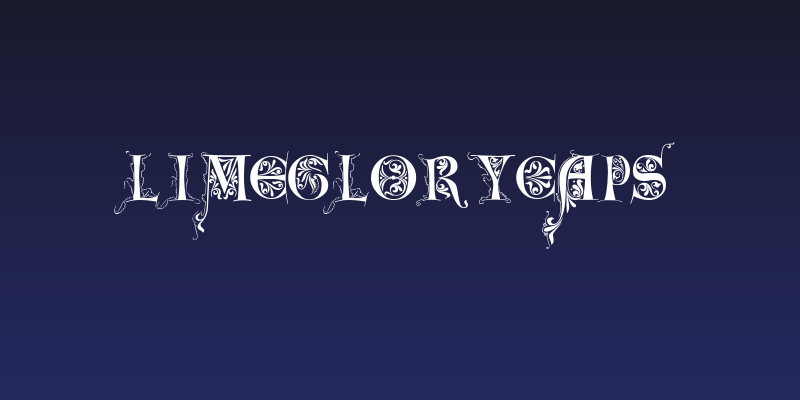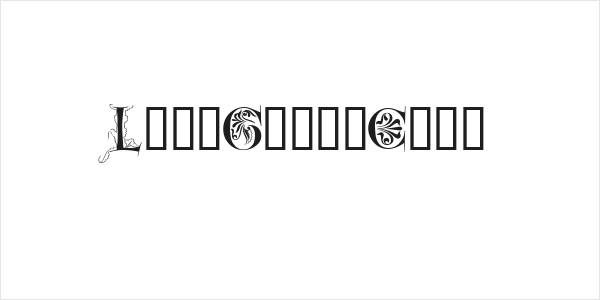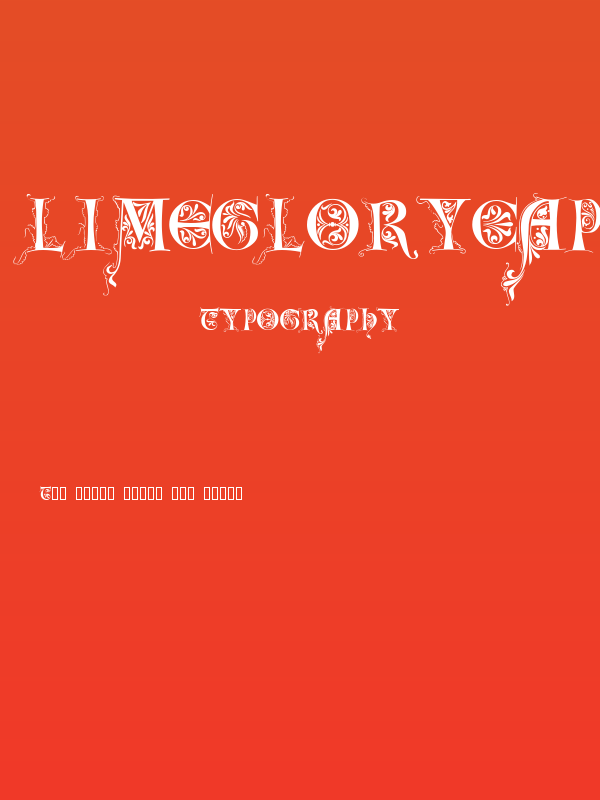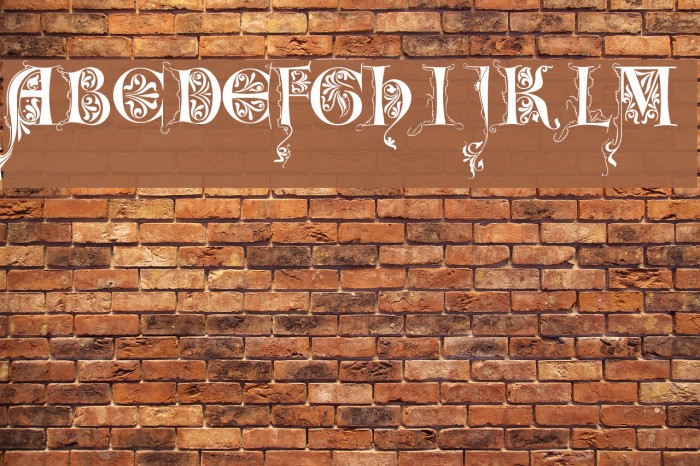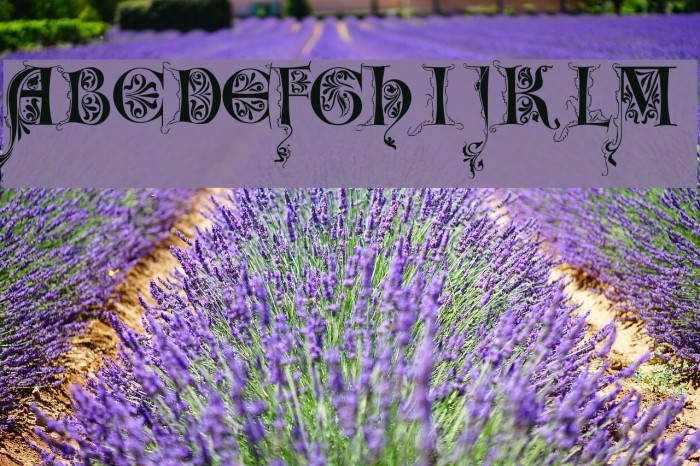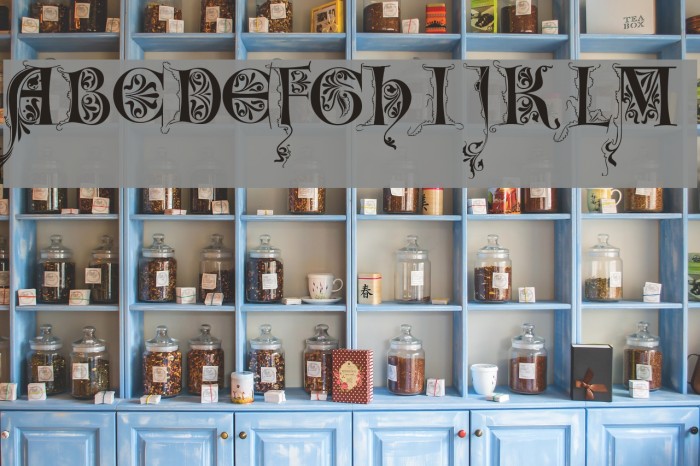
LimeGloryCaps Font
LimeGloryCaps Description
This font is an ornate and decorative typeface featuring elaborate flourishes and intricate details. Each letter is adorned with swirling embellishments and floral motifs, creating a sense of elegance and grandeur. The uppercase letters are particularly striking, with their bold and artistic design that captures attention. The font's style is reminiscent of vintage calligraphy, making it suitable for projects that require a touch of sophistication and historical charm. Its unique and artistic appearance makes it ideal for decorative purposes, where the visual impact is paramount.
| Overall Style | Vintage |
| Use Case | Headlines, Logos, Decorative purposes |
| Proposed Projects | Ideal for wedding invitations, luxury branding, historical-themed designs, and decorative headings. |